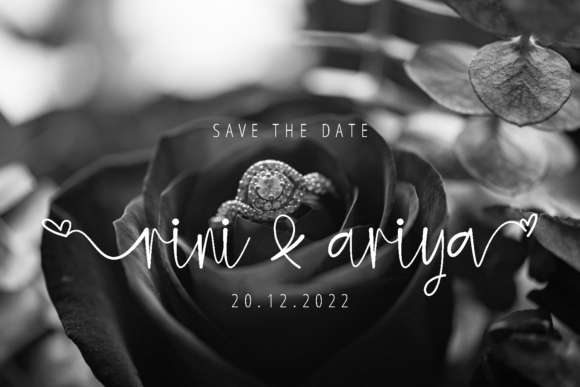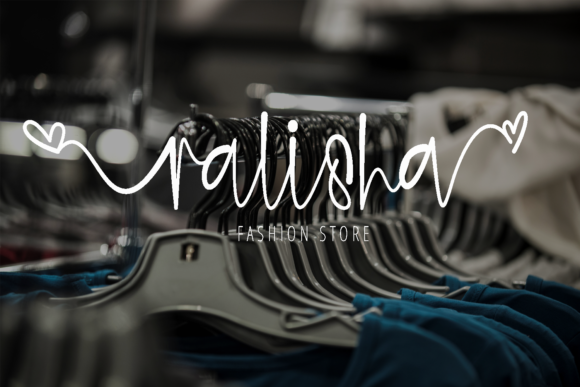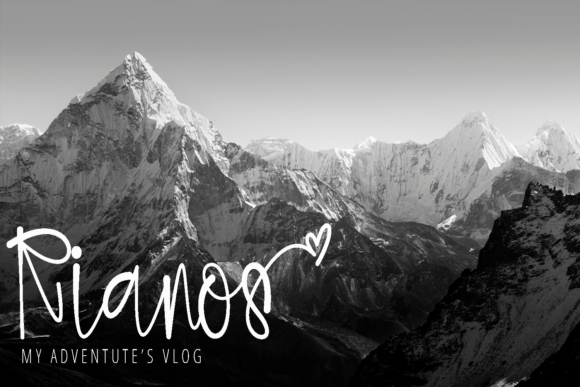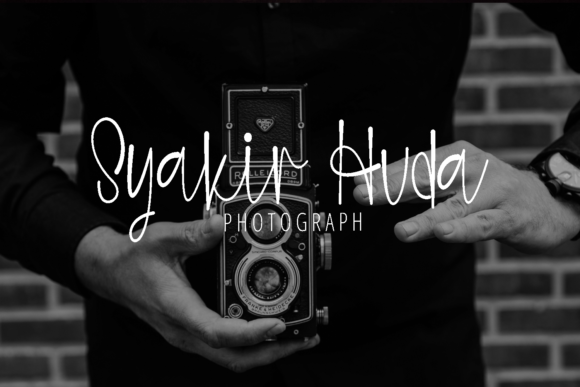
About Diamonds Font
Diamonds is a dainty and chic script font, featuring a lovely flair. It has beautiful and well balanced characters and as a result, it matches a wide pool of designs. Diamonds is PUA encoded which means you can access all of the glyphs and swashes with ease!Â